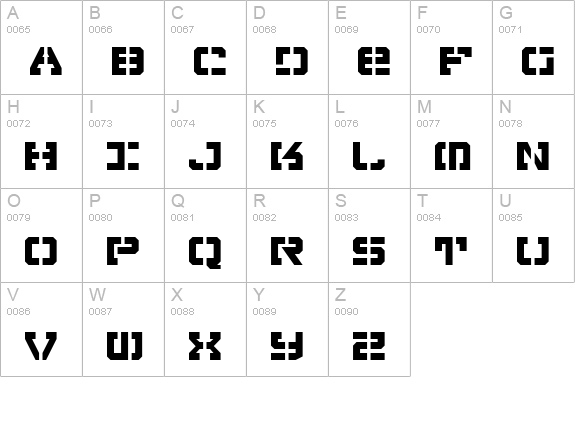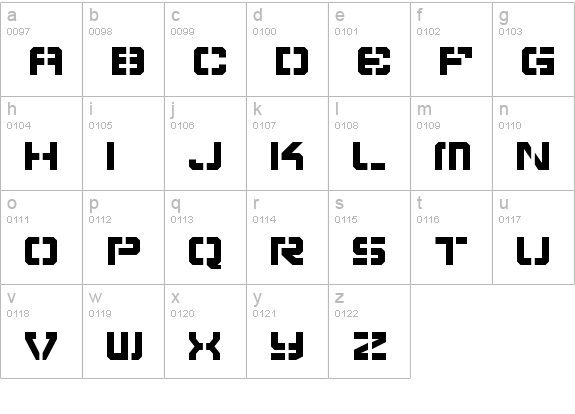
Vyper Font Details
Introducing Vyper font, a sleek and modern typeface that exudes sophistication and elegance. With its clean lines and contemporary style, Vyper font is perfect for a wide range of design projects, from branding to editorial layouts. This versatile font is sure to make a statement and elevate your designs to the next level. The best part? Vyper font is available for free download at FontsMarket.com. So whether you're a seasoned designer looking to refresh your font collection or a beginner searching for the perfect typeface for your next project, Vyper font has got you covered. Download it today and unleash your creativity with this stunning font!